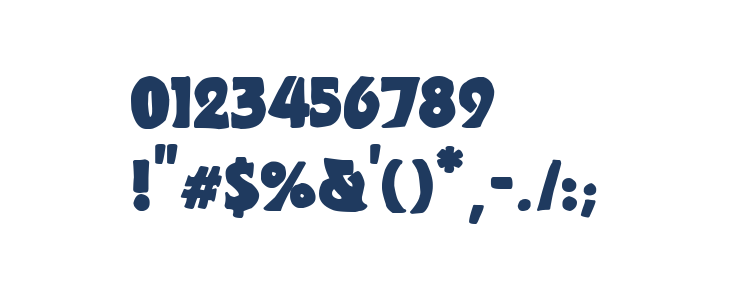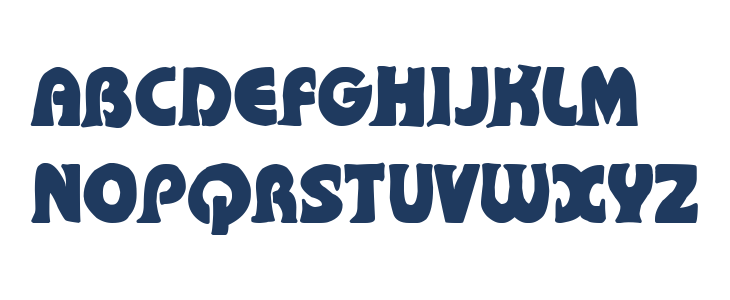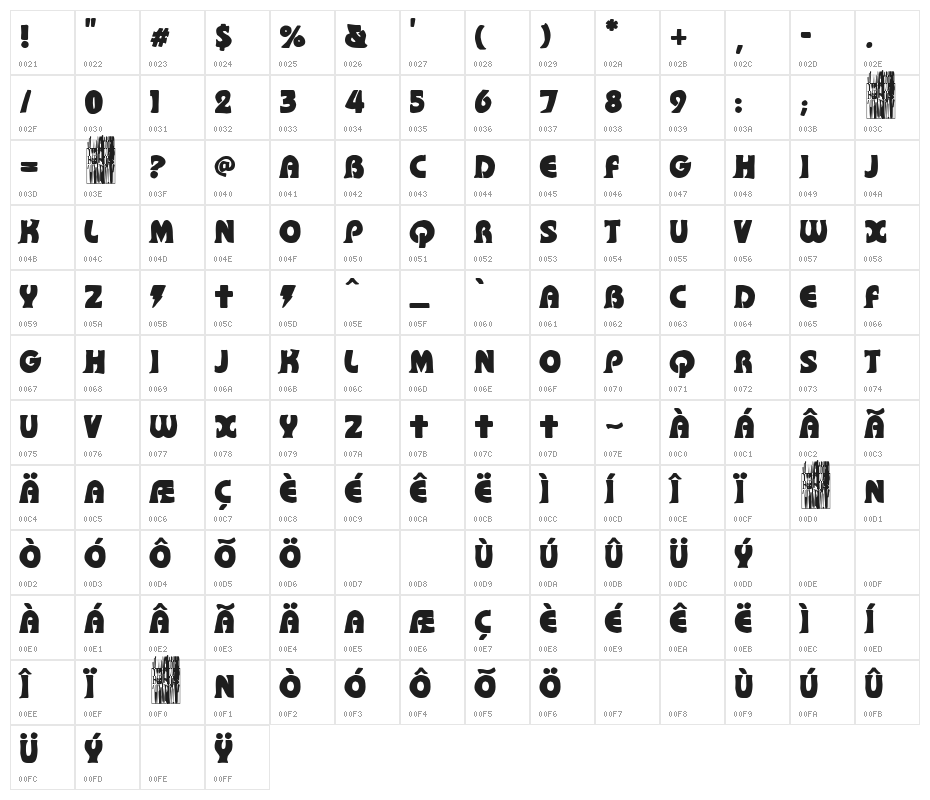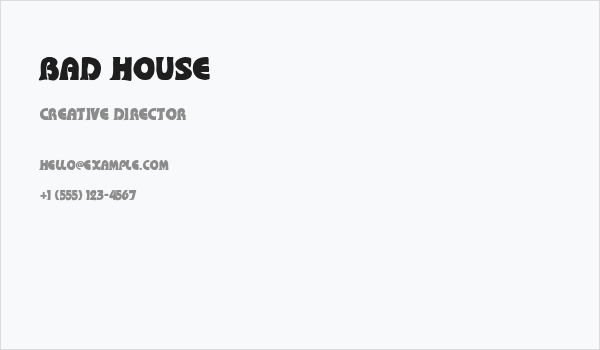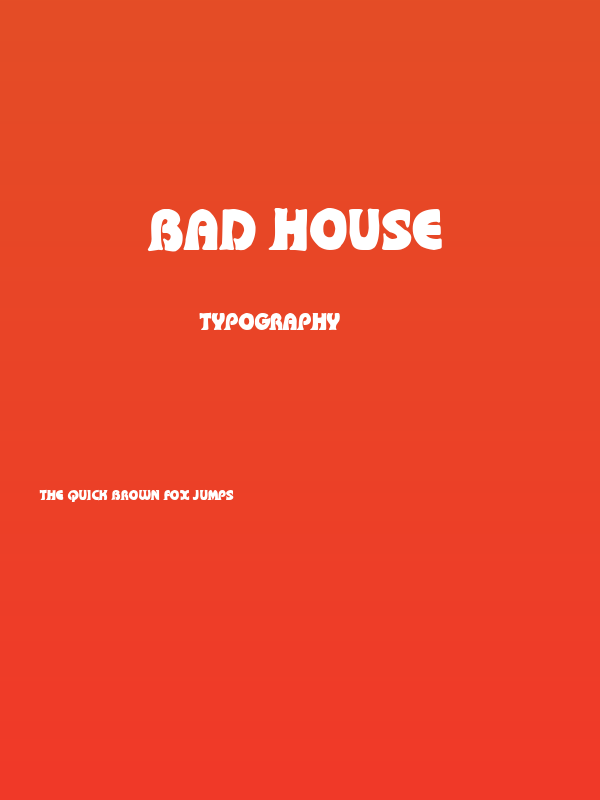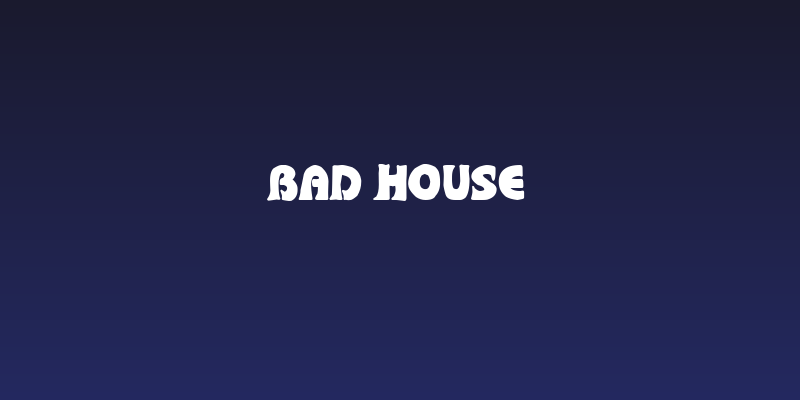
bad house Font
bad house Description
| Overall Style | Decorative, Playful, Cartoonish |
| Use Case | Headlines, Posters, Logos, Event Flyers |
| Proposed Projects | ChildrenΓ’β¬β’s books, posters, party invitations, comic titles, branding for playful or creative products. |